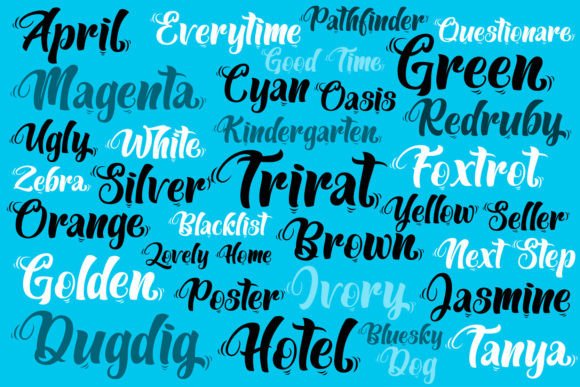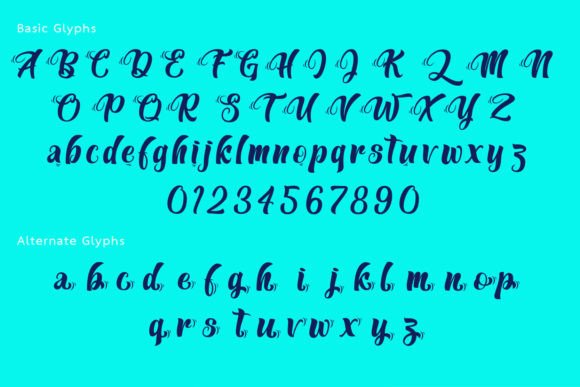
Introducing First Wave Font: Unleash Your Creativity with a Dynamic English Font
Are you tired of using the same old fonts for your designs? Look no further! First Wave Font is here to revolutionize your creative projects with its unique and captivating style. This dynamic English font embodies the essence of free-spirited creativity, making it perfect for designers and crafters who want to add a touch of personality to their work.
A Stylish Script Style like No Other
Crafted in a stylish script style, First Wave Font gives the impression of being hand-drawn with broad, fluid strokes. The font exudes a playful and vibrant energy, creating a sense of movement and liveliness that’s truly one-of-a-kind. With its contemporary appeal and captivating design, First Wave is the perfect choice for a wide range of advertising projects.
Whether you’re working on posters, flyers, or digital campaigns, First Wave Font effortlessly infuses a modern touch and a sense of joy, making it ideal for capturing attention and adding a unique flair to your designs. The font’s versatility knows no bounds, and it can be used for various purposes, including:
- Event invitations and promotional materials
- Digital and print media
Why Choose First Wave Font?
So, why should you choose First Wave Font for your next design project? Here are just a few reasons:
- Unique and captivating design: First Wave Font stands out from the crowd with its stylish script style and vibrant energy.
- Versatility: The font can be used for a wide range of design projects, from advertising and marketing materials to social media graphics and posts.
- Modern and playful: First Wave Font adds a touch of joy and modernity to any design.
Tips for Using First Wave Font
To get the most out of First Wave Font, here are a few tips:
- Experiment with different sizes and colors: First Wave Font looks great in a variety of sizes and colors, so don’t be afraid to try out different combinations.
- Pair it with other fonts: First Wave Font pairs well with other fonts, so try combining it with a bold font for headings or a clean font for body text.
- Use it for emphasis: First Wave Font is perfect for adding emphasis to certain words or phrases in your design.
In conclusion, First Wave Font is a dynamic English font that embodies the essence of free-spirited creativity. With its stylish script style, vibrant energy, and PUA encoding, it’s the perfect choice for designers and crafters who want to add a touch of personality to their work. Whether you’re working on a advertising project, social media graphic, or branding design, First Wave Font is sure to make your design stand out from the crowd.